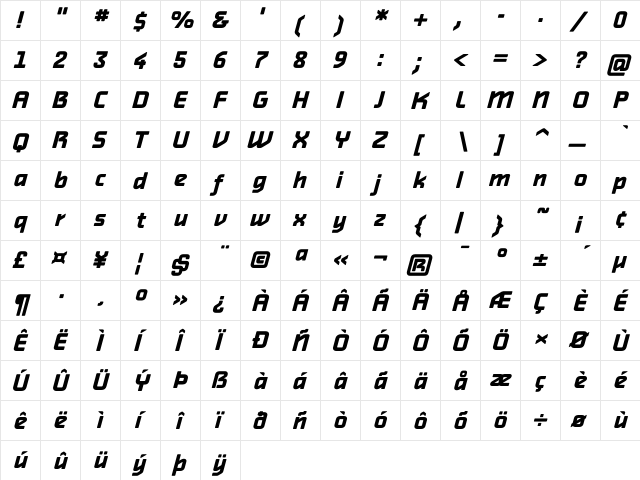
Alphaville BoldOblique Font Preview
Design Context for Alphaville Typeface
Alphaville offers clean, dependable letterforms without strong stylistic allegiance, making it a practical choice for designers who need flexibility. The dynamic lean of this cut emphasises speed and emphasis in any layout. Its bold stroke weight gives it real presence on the page.
Pro Tip: Try Alphaville for annotation and caption copy alongside an upright companion — the contrast in angle creates a dynamic but ordered typographic system.